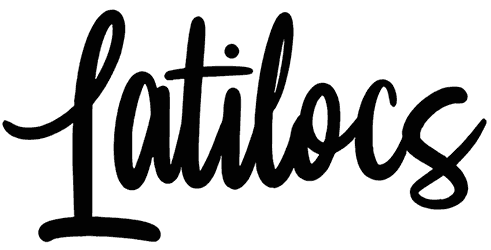
Latilocs font is in the collection of handwritten fonts. While this calligraphy font has low readability, it can be used to design birthday cards for girls and a variety of packaging for cosmetic products.
“Latilocs” is a font display is made by hand, inspired by classic posters.
comes with uppercase, lowercase, numerals, punctuations and so many variations on each character include OpenType alternates, common ligatures and also additional swash to let you customize your designs. Perfect to use for Logotype, Letterhead, Poster, Apparel Design, Label and etc.